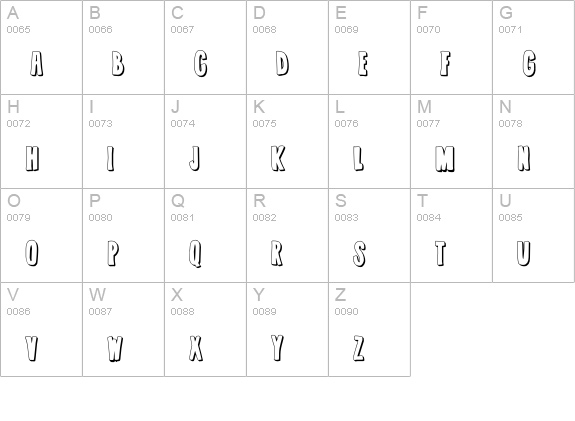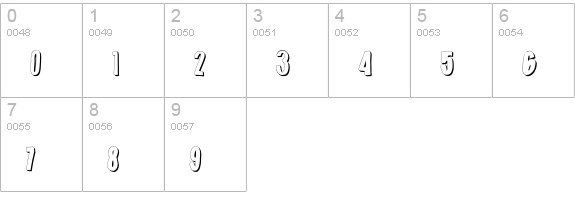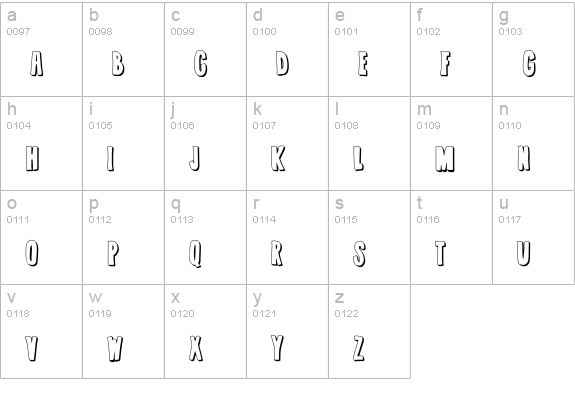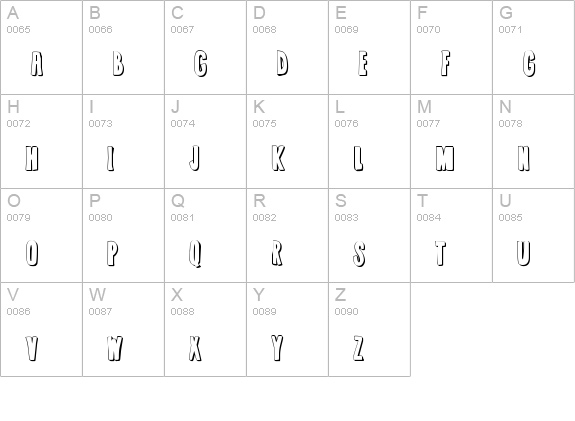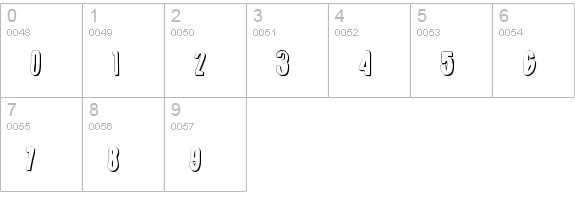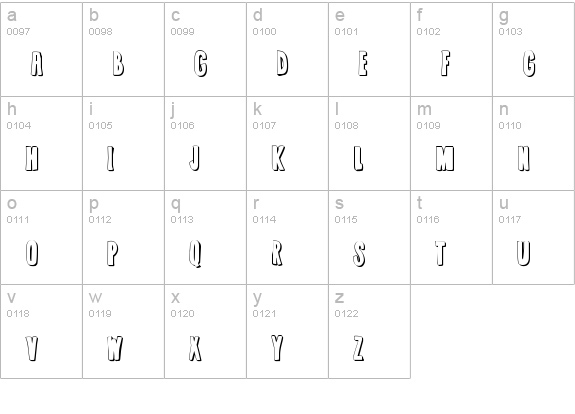
Summer Jams Outline Font Details
Introducing Summer Jams Outline font, a vibrant and playful typeface that captures the essence of sunny summer days and carefree vibes. This font is perfect for adding a touch of fun and excitement to your designs, whether you're creating posters, invitations, or social media graphics. The Summer Jams Outline font features a unique outline style that creates a visually captivating effect, making it stand out from the crowd. Its bold and energetic appearance instantly grabs attention and adds a sense of liveliness to any project. What makes Summer Jams Outline even more appealing is that it is completely free to download! Yes, you read that right - this amazing font is available for free at FontsMarket.com. This means you can unleash your creativity without worrying about breaking the bank or compromising on quality. With its wide range of characters and glyphs, Summer Jams Outline font offers versatility and flexibility, allowing you to experiment with different styles and layouts. Whether you're aiming for a retro-inspired design, a modern look, or something in between, this font has got you covered. The Summer Jams Outline font is designed with ease of use in mind. Its clean and legible letterforms ensure readability, even at smaller sizes, making it suitable for various design projects. Plus, its compatibility with different software and devices ensures a seamless experience across platforms. So, why wait? Get your hands on the Summer Jams Outline font today and elevate your designs to the next level. Download it for free at FontsMarket.com and let your creativity shine with this captivating and lively typeface.